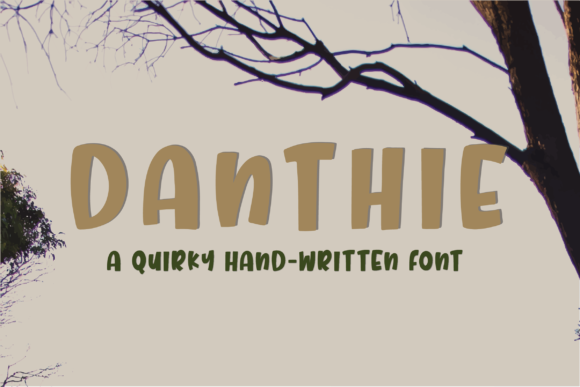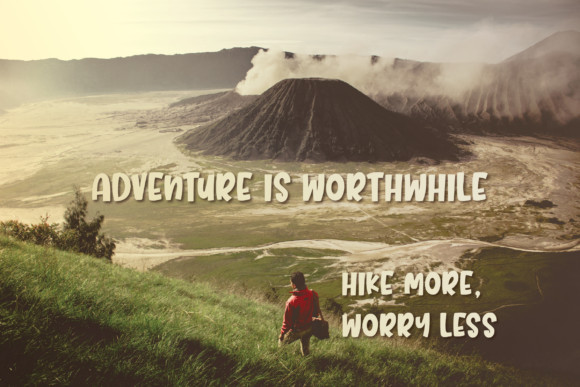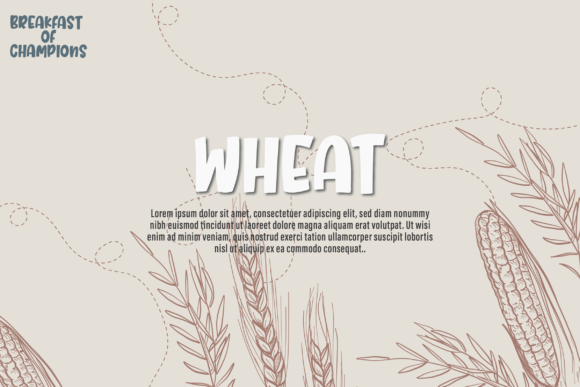
Danthie Font
Danthie is a happy and quirky sans serif font that feels incredibly cute and modern. It will take any crafting design to the highest level.